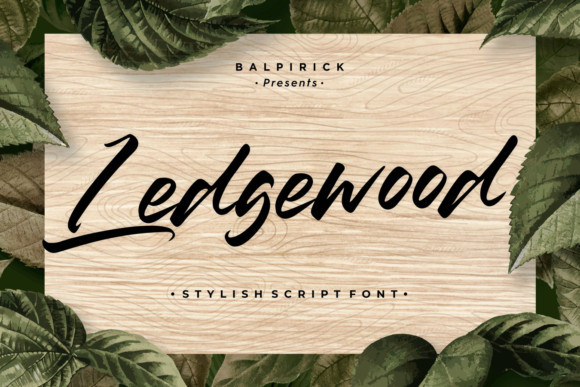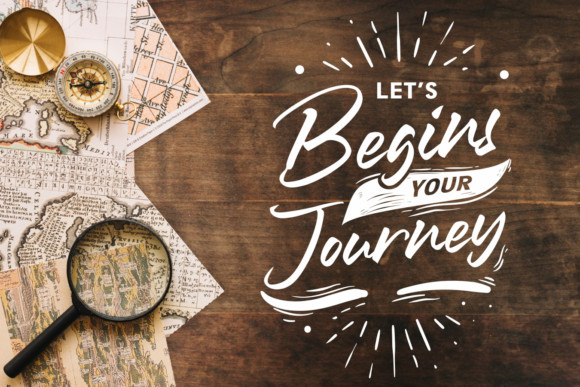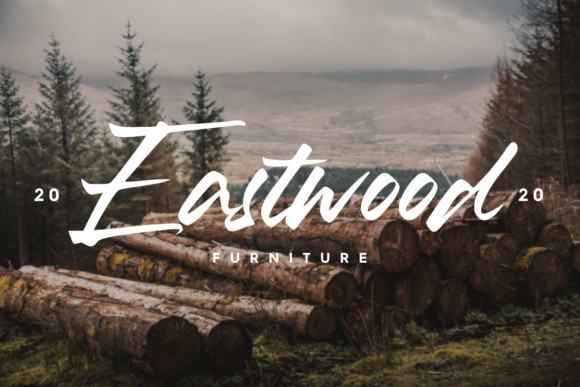
Ledgewood Font
Ledgewood is a clean and stylish handwritten font, carefully handcrafted to become a true favorite. This font will look outstanding in any context, whether it’s being used on busy backgrounds or as a standalone headline!